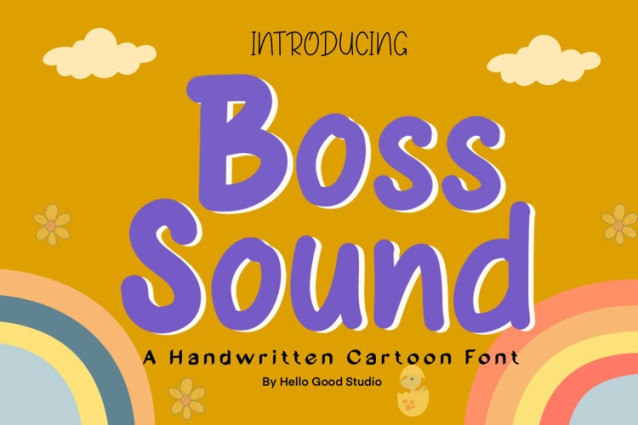
Boss Sound Font
Boss Sound Font a sweet and friendly handwritten font. Cute and fun, this font is ideal for writing wedding invitations, cards, or any other design that might need a fun touch!